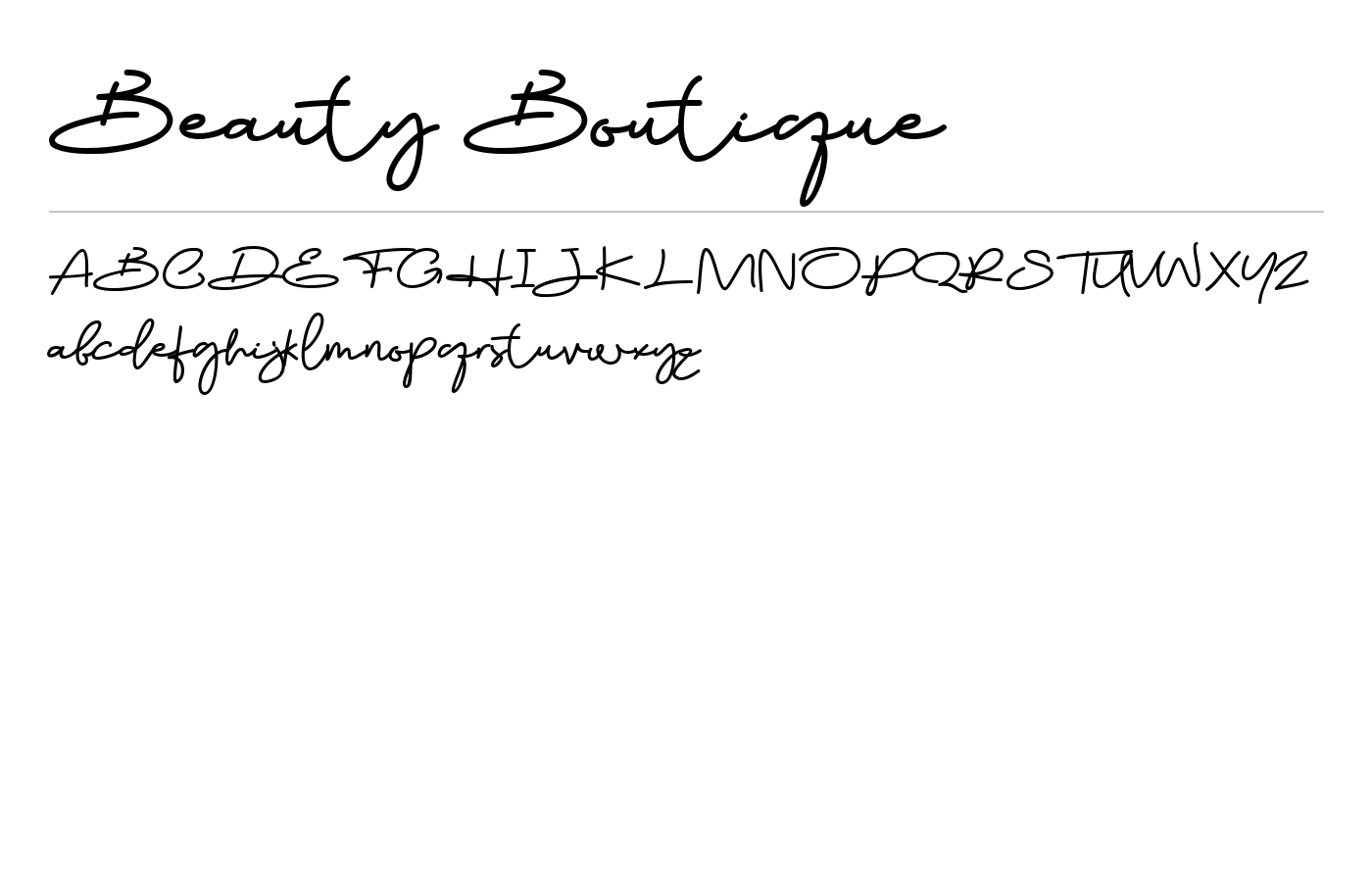
Beauty Boutique is a delicate and elegant script font that features smooth, flowing lines with a light weight and moderate contrast, giving it a refined yet approachable feel. Its handwritten style, characterized by tall, narrow letterforms and subtle loops, makes it perfect for branding in fashion, beauty, and lifestyle industries where a personal, sophisticated touch is desired. This font works beautifully in logos, invitations, and editorial headlines, adding a graceful and stylish flair to any design.
Beauty Boutique Font
About Beauty Boutique Font
| Font family | Beauty Boutique Font |
| Designer | Aldedesign 2019 (Alde Saputro) |